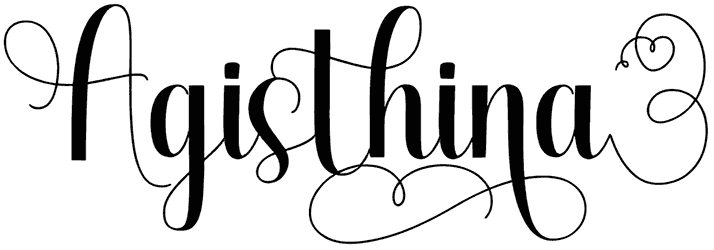
Agisthina Font
“Talent is everywhere; the opportunity is not.” So, you’d better not spend more time running a distinctive typography design, and get a chance to use this script font to prove its ability. Perform this artistic font, conveying the enjoyment of displaying anything, style your letters, and run a sweet, minimal design.
Agisthina is one of RB’s magic, with the A-Z alphabet, doing the best in highlighting many tasks. The end design of the ornamental serif will make your winnings take at least two minutes!